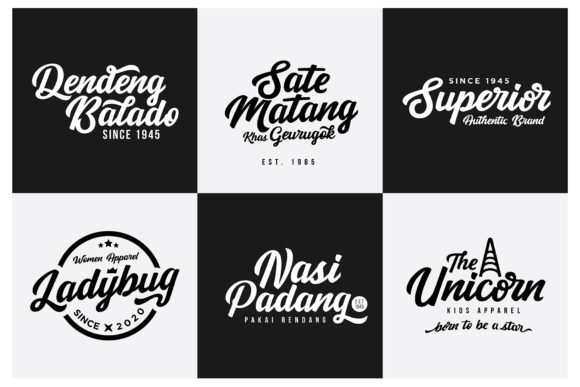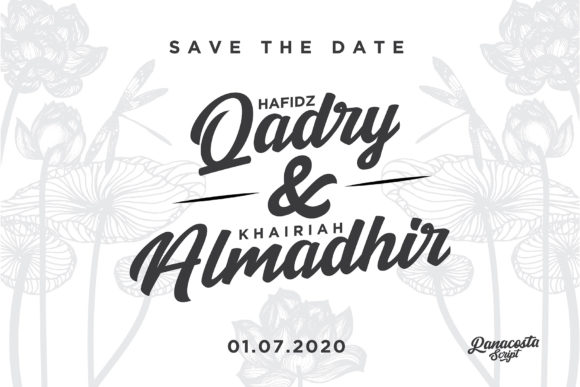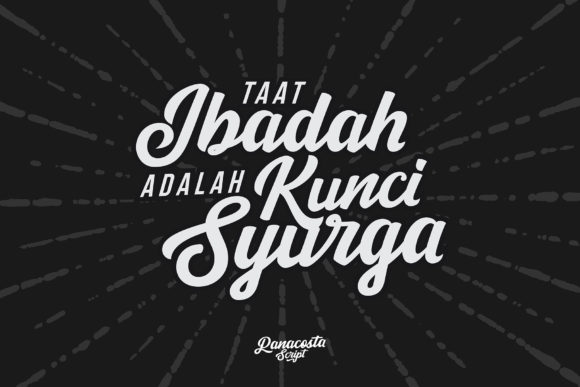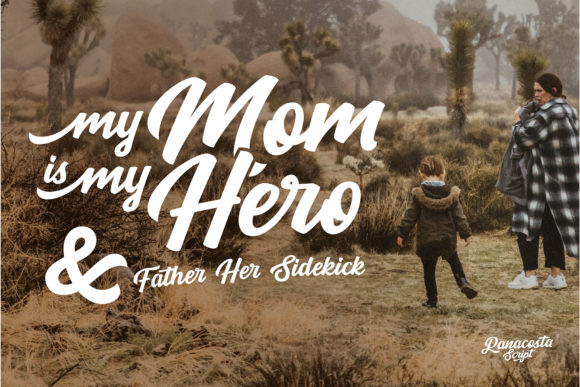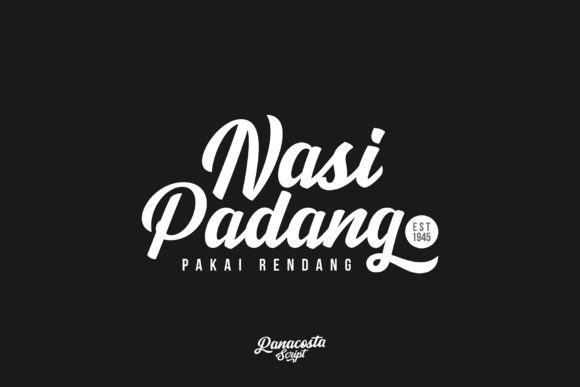
Introduction to Panacosta Font
Remember that moment when you’re working on a creative project and you’re stuck trying to find the perfect font to match your vision? You’ve spent hours browsing through design resources, only to end up with something that’s just not quite right. But what if I told you that there’s a solution to this problem, a game-changer that can elevate your design to the next level?
| 👤 Author | Hafidz Qadrie |
Enter the Panacosta Font, a high-quality, handwritten font that brings a touch of elegance and sophistication to any design project. Whether you’re working on a web design, a print campaign, or even a video project, Panacosta Font is the perfect companion to help you bring your ideas to life. And the best part? It’s available for free download, making it a valuable resource for designers of all levels.
Key Features of Panacosta Font
- High-quality design resource with a unique, elegant style suitable for creative projects
- Perfect for designers looking for a versatile and stylish font to elevate their design work
Honest Review: Panacosta Font
As a designer, I’m always on the lookout for high-quality design resources that can elevate my creative project. Recently, I came across the Panacosta Font, and I must say, it’s been a game-changer. This font is perfect for designers who want a versatile and stylish typeface for their next project.
Here are some things that work well for me:
- ✨ The font is highly customizable, making it suitable for a wide range of creative projects.
- ⚠️ Some users may find the font too ornate or distracting, depending on the project’s tone and style.
Overall, I’m impressed with the Panacosta Font. It’s a high-quality design resource that’s perfect for designers who want to add a touch of elegance to their creative project. With its versatility and customizability, I’m confident that it will become a staple in my design arsenal.
Tips for Getting the Most Out of Panacosta Font
Use the Panacosta Font on a transparent background to create a unique and eye-catching design. Experiment with different font sizes and styles to add depth and interest to your creative project.
Common Use Cases for Panacosta Font
The Panacosta Font is ideal for use in logos, branding materials, and marketing materials. Its high quality and unique design make it a great choice for creative projects that require a professional and stylish look.